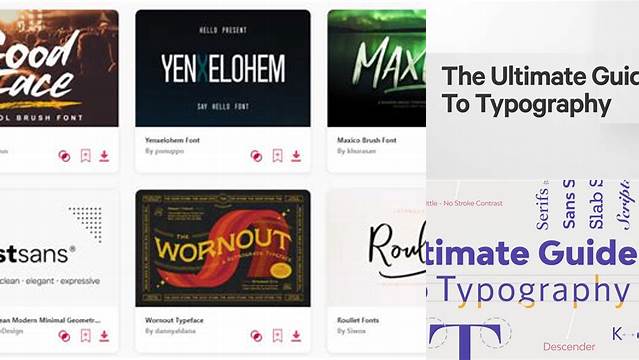
Envato Fonts: Your Ultimate Guide To Design Typography
Hey there, design enthusiasts! Today, we're diving deep into the world of typography and taking a close look at Envato Fonts, a massive library of fonts that can seriously level up your design game. Whether you're a seasoned pro or just starting out, choosing the right fonts is crucial. They set the tone, convey your message, and make your work stand out. So, are Envato Fonts the right choice for you? Let's find out! This comprehensive review will cover everything you need to know, from the selection process and font licensing to the overall user experience. Get ready to unlock a world of beautiful typography and transform your designs.
1. What Exactly Are Envato Fonts?
Alright, guys, let's get down to the basics. Envato Fonts is a subscription-based service provided by Envato Elements. Think of it as an all-you-can-eat buffet for fonts! For a monthly fee, you get unlimited access to a huge collection of high-quality fonts, perfect for all sorts of projects. This includes everything from website headers and body text to logos, social media graphics, and print materials. Envato Fonts offers a wide range of font styles, weights, and designs, so you're sure to find the perfect match for your needs. The platform constantly adds new fonts, ensuring you always have fresh and exciting options to explore. The service caters to various design styles, from modern and minimalist to classic and vintage, providing flexibility and creativity. Moreover, the intuitive interface and user-friendly search functionality make finding the right font a breeze. They also provide a licensing system that simplifies the use of fonts for commercial and personal projects. Ultimately, Envato Fonts provides designers with a cost-effective, comprehensive, and easy-to-use platform for accessing a vast library of fonts, enabling them to focus on their creative work without the hassle of individual font purchases. Choosing the right font can make or break a design, and Envato Fonts makes it easy.
2. Exploring the Vast Font Library of Envato
Okay, now for the fun part: the fonts themselves! Envato Fonts boasts a truly impressive library. They have thousands of fonts, spanning a wide array of categories, including sans-serif, serif, script, display, and monospace. You'll find fonts suitable for everything from clean and modern websites to elegant invitations and eye-catching branding materials. The library is well-organized, with filters and search options to help you quickly narrow down your choices. You can filter by style, weight, and even the specific languages supported, ensuring you can find fonts that meet your project's requirements. Plus, Envato adds new fonts regularly, so there's always something new to discover. The quality of the fonts is generally excellent, with most being professionally designed and optimized for various uses. They are designed with legibility and aesthetics in mind, guaranteeing they will look good whether you are designing for print or digital. They even offer previews that show how fonts will look in different contexts, allowing you to experiment with various text sizes, spacing, and styles. This saves you valuable time and effort, helping you avoid any potential design mishaps. The variety is important because it allows designers to choose the fonts that are most suitable for their projects, and they can experiment with different combinations without incurring additional costs.
2.1. Font Categories and Styles Available
When we talk about Envato Fonts, we are talking about an expansive library. It's all about choice, so you have access to a multitude of categories. Let's dive into a few key styles: Sans-serif fonts are clean and modern, perfect for web design and modern applications. Serif fonts are traditional and elegant, suited for body text and print. Script fonts add a touch of personality, ideal for logos and headings. Display fonts make a bold statement, suitable for headlines and promotional materials. Monospace fonts are great for code and technical documents. They have a wide spectrum of fonts to help you with any design. They organize their fonts. This makes it easy for you to find the font you are looking for. Whether you're designing a minimalist website or a vibrant social media campaign, you'll likely find what you need. They are well-organized and categorized, with previews and detailed information. This is crucial to help you find what best suits your needs. You will be able to find fonts based on style, weight, and even specific language support. They provide a great user experience that will help you make quick and effective choices. Their goal is to ensure that designers can access the best possible fonts.
2.2. Font Weight and Variations
One of the coolest things about Envato Fonts is the attention to detail in font variations. Beyond just the typeface itself, they offer a wide range of font weights and styles. Weight refers to how thick or thin a font appears. You'll find everything from light and delicate fonts to bold, attention-grabbing ones. Styles add even more flexibility. There are italics, condensed versions, and sometimes even special characters. They understand that the finer details can make or break your design. They provide everything from light and airy fonts to heavy and assertive fonts, so your text can look good. This variety lets you control the visual hierarchy and create more dynamic designs. The weights are essential for creating a balance between text and the overall design. The variations provide more room for creative expression, allowing designers to highlight important information or create interesting visual effects. Envato also offers previews, allowing you to experiment with the different weights and variations. This lets you see exactly how the font looks in your design before you commit to it. They make sure your design is not just visually appealing but also easy to read and engaging. They offer a high level of design control.
2.3. Language Support and Special Characters
When you work with Envato Fonts, language support is a big deal. They understand that design is global. Envato offers a broad range of font options that support multiple languages and special characters. They are committed to providing fonts that cover a wide spectrum of language needs, which is critical for businesses or designers working with international audiences. They have fonts that feature extended character sets and include accented letters and symbols, ensuring that your text is displayed correctly in a variety of languages. This is extremely important for web design and graphic design, where communication is key. The availability of different languages is key. It gives designers the freedom to choose the right font for the target audience. The inclusion of special characters and symbols opens up the world of design possibilities. You can use your creativity to make designs more compelling. This allows you to use fonts that are not just functional but also culturally relevant. With Envato Fonts, your design isn't limited by language barriers, but it has a vast world of design possibilities. They help you to deliver your messages across borders and cultures.
3.1. Monthly vs. Annual Subscription Options
With Envato Fonts, you have a choice. You can choose between monthly and annual subscription plans. Monthly subscriptions offer flexibility. You can cancel anytime. This is good if you only need fonts for short-term projects. Annual subscriptions usually come with a discount. This is helpful if you are going to be using the service for a longer period. You can choose the best option for your needs. The cost is different. Consider how much you plan to use the service and how long you will need it. Are you working on a large project? Is the design project long term? Then go with an annual subscription. The choice is yours. The subscription will suit your needs, so your design is right for you. You have all the flexibility you need to get creative.
3.2. Comparing Envato Fonts Pricing with Competitors
When it comes to font subscriptions, it's always smart to compare options. Envato Fonts stands out as a strong contender, offering a compelling balance of price and value. To determine whether Envato Fonts is right for you, compare it to other font services. Look at the number of fonts, the quality of the fonts, and the licensing terms. Envato provides a user-friendly interface, which is important. You can find the right fonts for your project. They have a wide range of fonts. They have options for different budgets. This makes them a competitive choice for designers. However, the best choice depends on individual needs and preferences. The most important thing is to choose the service that best suits your needs.
3.3. Is Envato Fonts a Cost-Effective Solution for Designers?
Okay, is Envato Fonts a good deal? The answer is yes, for most designers. If you regularly use fonts for your projects, the subscription model provides excellent value. You get unlimited access to a huge library without the hassle of purchasing individual font licenses. It can save you a lot of money. Especially if you work on multiple projects. For freelance designers and agencies, it is often a very good choice. They have a wide range of fonts, so you will always have the right one. It can be the perfect option for anyone looking to expand their design toolkit. It offers a cost-effective and flexible solution. The cost is one of the major benefits. If you only need fonts occasionally, a subscription might not be the best option. But if you design frequently, Envato Fonts is a great investment.
4. User Interface and Experience
Let's talk about how easy it is to use Envato Fonts. They have a user-friendly interface. You will find what you are looking for quickly. The interface is intuitive. This is important to help you navigate the library. They provide different features, like filtering and sorting fonts. They offer great functionality to find the perfect fonts. They provide previews and detailed information about each font. This is useful to help you choose the right font for your project. Envato is designed for all users. It does not matter if you are a beginner or an experienced designer. They are user friendly.
4.1. Ease of Navigation and Search Functionality
Navigation is key when you use Envato Fonts. They have made it simple for you to find the font you want. The search function is very intuitive. You can search by keyword, style, or even designer. They have filters that will help you to narrow your search. You can filter by style, weight, and even language support. They provide an excellent user experience. This is very important for designers. You can easily find the fonts you are looking for. It will save you time. They are focused on making your experience smooth and effective. They allow you to make informed choices.
4.2. Font Preview and Customization Options
Preview is important when working with Envato Fonts. They offer preview options that will help you to make informed choices. You can see how a font looks. This is important so you can see how it will look in different contexts. They let you test out different text sizes, spacing, and styles. This will let you customize the font. This lets you choose the right one for your project. They want you to make sure your design is great. The tools are designed to give you control. This allows you to create designs that are beautiful and readable.
4.3. Downloading and Managing Your Fonts
Once you've found the perfect font on Envato Fonts, downloading and managing your fonts is easy. They provide a simple download process. The fonts are often downloaded in a standard format. You can easily install them on your computer. Envato provides tools to help you organize your fonts. This can be very important. You can easily manage your library. They make sure the process is easy. This lets you focus on creating great designs. They make sure it is simple to integrate these fonts into your workflow.
5. Licensing and Usage Rights for Envato Fonts
Let's talk about licensing, which is super important! With Envato Fonts, you get a commercial license for all the fonts you download, which is awesome. This means you can use them for both personal and commercial projects, including websites, branding, and print materials. They want you to feel secure. They have clear and straightforward terms, which helps to avoid confusion. Always review the specific license terms for each font. They usually include restrictions on things like reselling the fonts or using them in certain types of products. But overall, the licensing is very generous, making it a great option for designers. They provide clear and simple licensing options.
5.1. Commercial vs. Personal Use Licenses
When it comes to Envato Fonts, the licensing is generally very designer-friendly. They offer a commercial license. This license is for both personal and commercial use. This means you can use the fonts for a wide range of projects, from personal blogs to client work. This is a big advantage. It provides flexibility. It also allows you to create a diverse portfolio. The commercial license gives you the freedom to use the fonts in your work. The key is understanding the scope of the license. They also provide details. Always read the specific terms and conditions for each font. This will help ensure you're using them legally. This also protects your design work.
5.2. Restrictions and Limitations on Font Usage
They are committed to providing a comprehensive design solution with Envato Fonts. They provide you with a commercial license. However, it is important to be aware of limitations. Always read the specific terms for each font. There are a few restrictions. You cannot resell or redistribute the fonts. You may also have limitations on using them in certain types of products. Understanding these limitations is important. They have very clear guidelines. They allow you to use them legally and ethically. It is about making informed choices. This will protect both you and Envato. By staying informed, you can create freely. You are free to create without worrying about legal issues.
5.3. Embedding Fonts and Web Use Guidelines
Web design is an important part of Envato Fonts. They provide you with detailed web use guidelines. This is important to make sure your websites load quickly. You can embed the fonts for your projects. You can embed fonts in your websites. They are optimized for web use. They help you ensure your sites look good. They will also load fast. You can also check the specific instructions for each font. This is important to know how they recommend embedding the fonts. They will have all of the information for you to make sure your website loads properly. You can be sure your website will look great and work well. They make web design easier for designers.
6. Font Quality and Design Standards
Now, let's talk about font quality. Envato Fonts takes pride in offering high-quality fonts. They have stringent quality standards. They only include fonts from professional designers. They make sure each font is well-designed. They want to ensure the fonts are visually appealing. They focus on things like readability and kerning. This will make sure your designs are great. They also provide previews, so you can make the best choices. Envato is known for the quality of its font collection, giving you the peace of mind that you're working with professional-grade assets.
6.1. Evaluating the Aesthetics of Envato Fonts
With Envato Fonts, the aesthetics are excellent. They offer a great selection of styles and designs. You can find the perfect font for your project. From clean and modern fonts to classic and elegant fonts, you will find what you need. They have fonts that are visually appealing. They are also designed for readability. The design elements are great. You can choose fonts that express your brand's personality. They provide various options, which will ensure your designs look fantastic. This will allow you to create a great look and feel. The aesthetics help make your designs pop. The goal is to help designers create visual masterpieces.
6.2. Assessing Readability and Legibility
When it comes to Envato Fonts, readability and legibility are very important. This is especially true for the body text. They ensure their fonts are designed for reading. They focus on features such as letter spacing and clear character designs. They are concerned with the user experience. This means they take into account the size and context of your project. This is important for ensuring the text is readable in all situations. Readability is key, especially for web design and long-form content. Legibility helps to improve the user experience. Envato wants to ensure the readability and legibility of their fonts. They make sure every font is created with the end-user in mind.
6.3. Technical Aspects: Kerning and Font Metrics
Behind the scenes, Envato Fonts cares about technical details. They pay attention to kerning and font metrics. Kerning is about spacing between letters. Font metrics are about the technical aspects of the font. Kerning is important for great-looking text. Good kerning makes sure the text looks balanced. The right font metrics will make sure the font works well across all platforms. They want to make sure their fonts look and work well. This attention to detail gives you confidence in your designs. They pay attention to all the technical details. They want to help their users achieve the best results.
7. Pros and Cons of Using Envato Fonts
Alright, let's weigh the good and the bad of Envato Fonts. On the pro side, you get a massive font library, commercial licenses, and a user-friendly interface. This is all included in a cost-effective subscription. On the con side, you're limited to the fonts within the Envato Elements library, and you might need to cancel your subscription if you stop needing the fonts. However, for most designers, the pros far outweigh the cons, making it a valuable resource for typography.
7.1. Advantages of Choosing Envato Fonts
With Envato Fonts, the advantages are clear. First, you get access to a huge collection of fonts. You will find what you need. Second, the subscription is cost-effective. This saves you money. Third, the licensing is simple and easy. This lets you use the fonts in a lot of projects. Lastly, the user interface is friendly, making the process easy. These advantages make it easy to see why Envato Fonts is popular. They offer designers a great service that is beneficial to everyone. The platform offers amazing resources for any designer.
7.2. Potential Disadvantages and Drawbacks
Even with Envato Fonts, it's good to know the potential downsides. One thing is you only have access to the fonts while your subscription is active. If you stop paying, you lose the fonts. There are a few limitations. You can't sell the fonts. You can't distribute them. You might find that they do not have every font you want. The solution is simple: If you are a serious designer, consider the benefits. The downsides are minor compared to the advantages. They provide excellent design resources. This makes it perfect for most designers.
7.3. Comparing Envato Fonts to Other Font Resources
When comparing Envato Fonts to other font resources, consider your needs. If you need a lot of fonts for multiple projects, the subscription model is a great deal. But other services might be better for specific fonts. Many font websites sell single font licenses. Adobe Fonts is another subscription service. They integrate with Adobe Creative Cloud. You can research your choices. This will help you make the best decision. Envato provides great value. They are easy to use. They provide a vast library of fonts. The best choice depends on your specific needs.
8. Who Should Use Envato Fonts?
So, who is Envato Fonts perfect for? It's a great fit for graphic designers, web designers, marketing professionals, and anyone who needs a consistent supply of fonts for their projects. Freelancers and agencies will also find it incredibly valuable. It is good for anyone who works on a lot of design projects. It is not for people who only need a font every now and then. If you regularly use fonts, Envato Fonts is a fantastic investment that will improve your workflow.
8.1. Designers and Creative Professionals
Envato Fonts is a perfect match for designers. Graphic designers, web designers, and marketing professionals will love Envato Fonts. If you are in a creative profession, you need a lot of fonts. They make sure their designers can choose the best fonts. If you have a lot of projects, you should use them. You will find it to be a great tool for your creative work. They provide the tools to enhance your design workflow. They make it easy to find and use great fonts. This will help your design projects and improve your workflow.
8.2. Businesses and Marketing Teams
Envato Fonts is great for business and marketing teams. They need a strong visual identity. They will be able to choose from a large selection of fonts. You can choose the right fonts to improve your brand. You can use the same fonts across all your platforms. It will make your brand look more consistent. The service will help your brand to stand out. It is perfect for marketing campaigns and branding. They provide teams with access to many fonts. This will help you build a brand that will resonate with your target audience.
8.3. Freelancers and Agencies
For freelancers and agencies, Envato Fonts is an excellent choice. They have to juggle a lot of projects. They need a lot of fonts. The subscription gives you a cost-effective way. You can use the fonts for all your clients. The licensing is easy. You do not need to worry about legal issues. They are cost effective. They provide access to many fonts. This is perfect for any professional designer. The service will help to save time and money. It will also improve your design workflow.
9. Getting Started with Envato Fonts
Ready to jump in? Getting started with Envato Fonts is super easy. You just need to subscribe to Envato Elements. Then, you can browse and download fonts directly from the platform. The process is very easy. They have clear instructions. They will guide you through the process. It's designed to be user-friendly. You will be able to start creating beautiful designs. You can be up and running quickly. Then, you can start to enhance your designs.
9.1. Creating an Envato Elements Account
First step: create an account. To use Envato Fonts, you need an Envato Elements account. It is easy to create an account. You can visit the Envato Elements website. You can choose a subscription plan. You will need an email and password. The process is simple. You can start browsing fonts immediately. They have guides to guide you through the process. They also have support if you need it. It is a smooth process.
9.2. Navigating the Envato Fonts Library
After creating an account, you are good to go. Navigating the Envato Fonts library is simple. You can find fonts using different categories. You can also search by keyword or style. You can filter by weight and language. You can explore the fonts easily. They provide previews. You will see the font in action. You can start downloading fonts. They provide a good user experience. The platform is designed to help you find the fonts. You can quickly find what you are looking for. It is designed to enhance your design experience.
9.3. Downloading and Installing Fonts on Your Devices
Downloading and installing fonts is easy with Envato Fonts. Once you have chosen your fonts, download them. They are typically provided in a standard format. The fonts are easy to install on your computer. You will be able to start using the fonts in your design software. You can always go to the support section if you need help. They are committed to making sure you have access. They will provide you with the right support. The process is designed to be simple. This allows you to focus on your creative process.
10. Tips and Tricks for Using Envato Fonts Effectively
Let's get the most out of Envato Fonts. One of the best tips is to experiment! Try different fonts. Mix and match them. Then, use previews to see how they will look. Learn about font pairing and using hierarchy in your designs. This will help you to take your designs to the next level. This will help you make the best of the Envato Fonts library.
10.1. Font Pairing and Combinations
Font pairing is an art. With Envato Fonts, you can experiment. Try different combinations. Some fonts work well together, some do not. You can experiment with different styles. There are many fonts. You can use resources to guide you. You can use the preview feature. This helps you to see how different fonts work. You can combine fonts. Then, you will be able to achieve a good balance. You will be able to get the right look.
10.2. Using Font Hierarchy in Your Designs
Envato Fonts lets you play with font hierarchy. Font hierarchy is important. It is how you guide the reader. You can do this with different weights and sizes. You can use different styles. Think about how you want to lead the reader's eye. The hierarchy will help you create a design. You can create a balanced and organized design. You can use the fonts to emphasize the right things.
10.3. Staying Updated with New Font Releases
They are constantly updating their library. You should stay up to date. Regularly check the Envato Fonts website. They have new fonts all the time. This keeps your work fresh. You can discover new fonts. You can be one of the first to know. They will also help you stay in touch with trends. Envato keeps you updated. This is important for designers. You should check for new fonts. You can add your creative design toolbox. You can easily find fresh fonts. They also have tutorials to help you keep up.
11. Conclusion: Is Envato Fonts Worth It?
So, the big question: Is Envato Fonts worth the investment? For most designers, the answer is a resounding YES! With its vast library, commercial licenses, and user-friendly interface, it's a fantastic resource that can streamline your workflow and elevate your designs. If you need a lot of fonts, the subscription is a great value. If you design a lot, Envato is the perfect platform for you.
In a nutshell, Envato Fonts is a great tool for any designer. The advantages are clear. It's a valuable resource for enhancing your creative work. It is designed to suit your needs. You can access fonts, and save time and money.